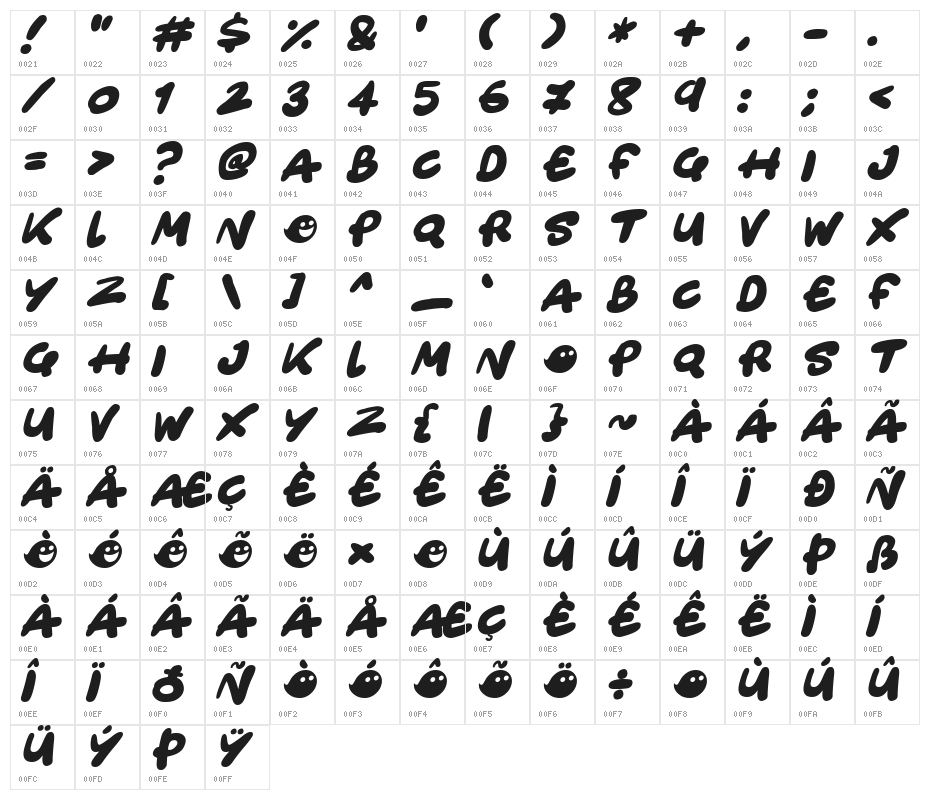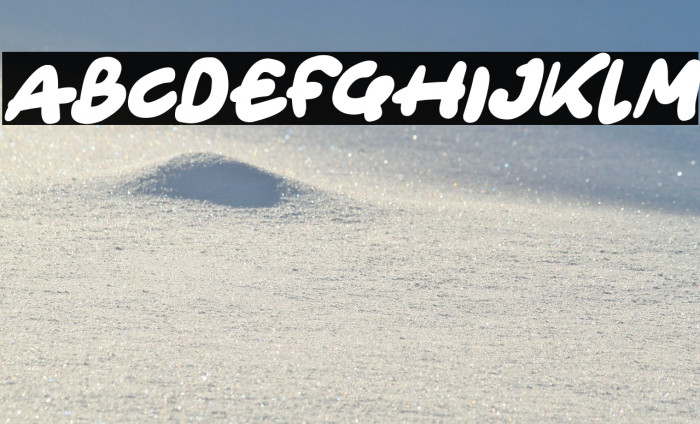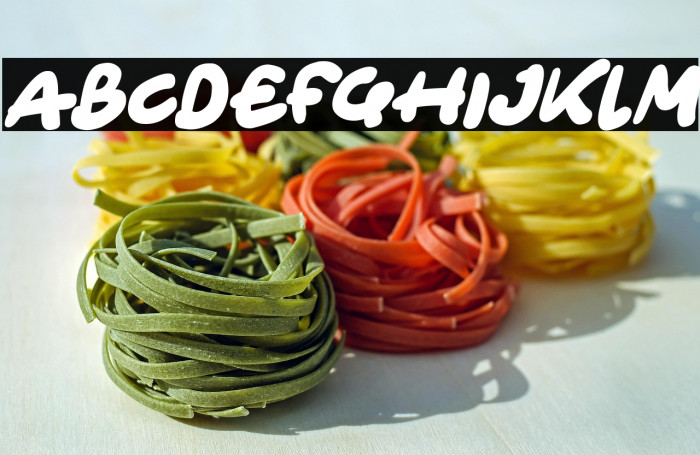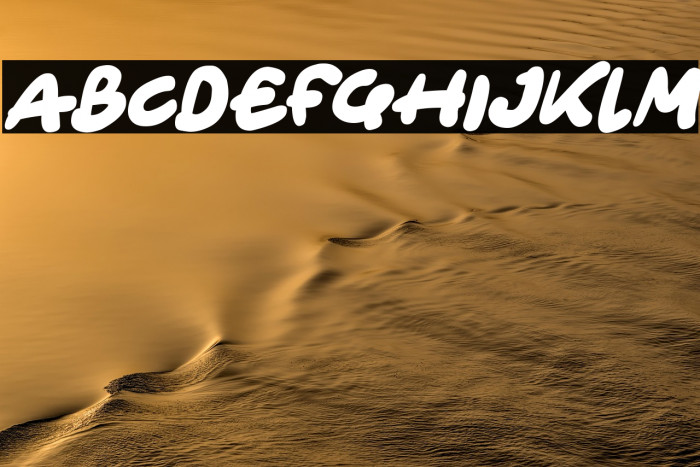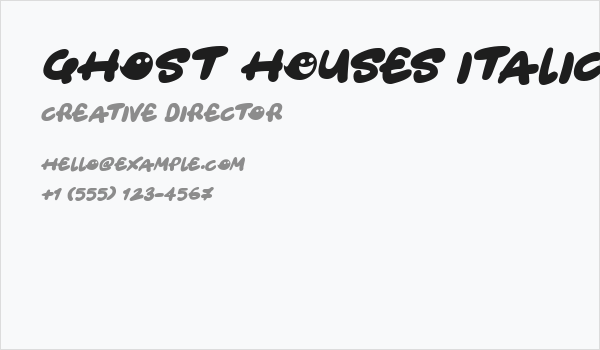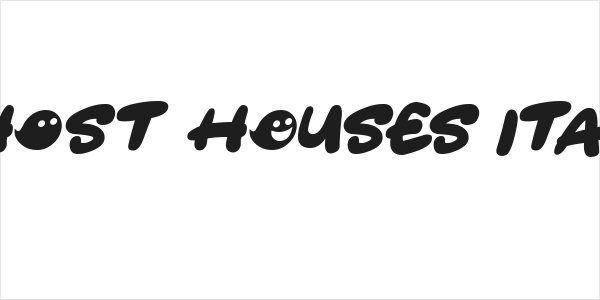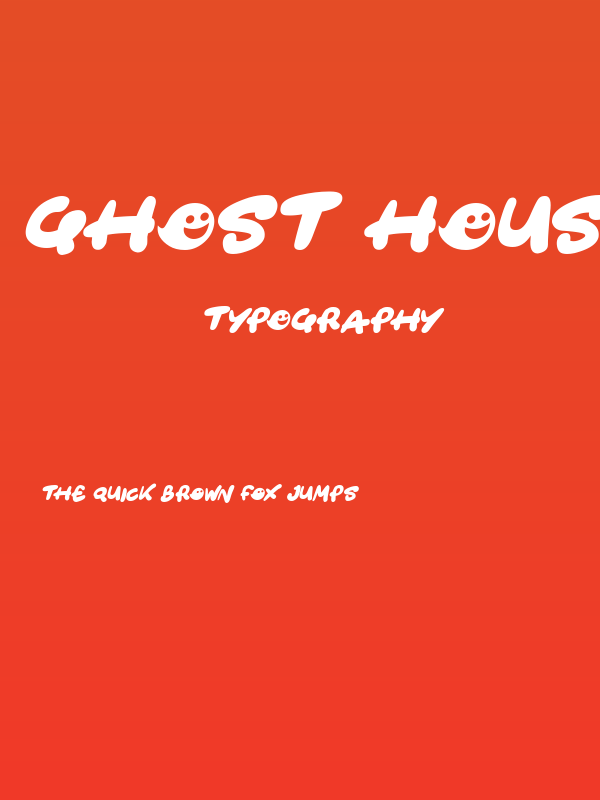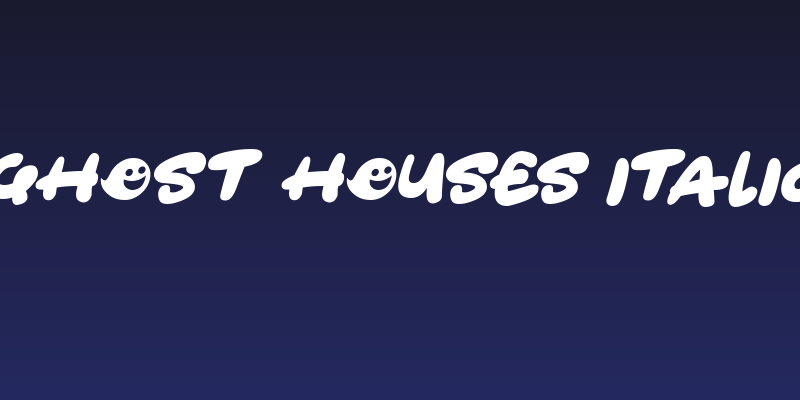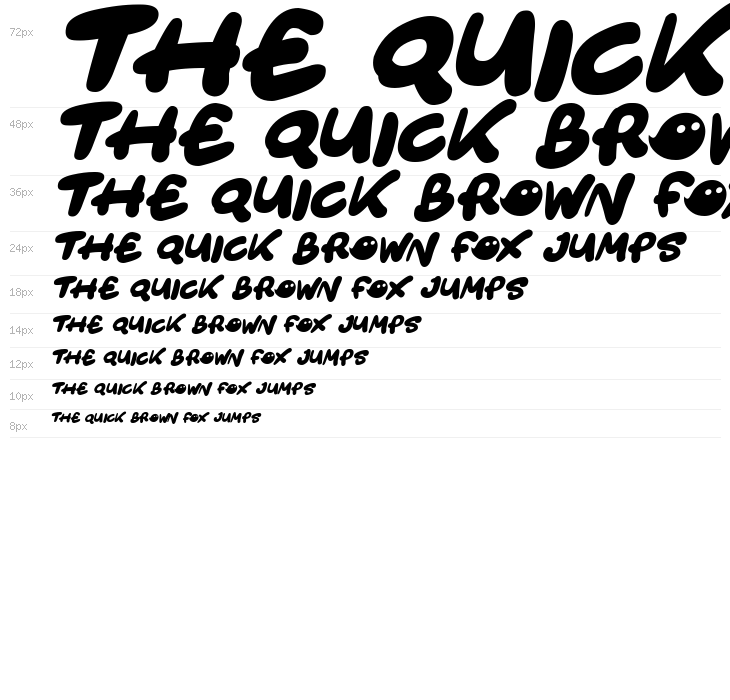
Ghost HOuses Italic Font
Ghost HOuses Italic Description
This playful and bold font features a whimsical, handwritten style with a slightly italicized slant. The characters are thick and rounded, giving them a friendly and approachable appearance. The font includes unique elements, such as smiley faces within the 'O' characters, adding a touch of fun and creativity. The numbers and special characters maintain the same playful aesthetic, ensuring consistency across all text elements. This font is perfect for projects that require a lighthearted and informal tone.